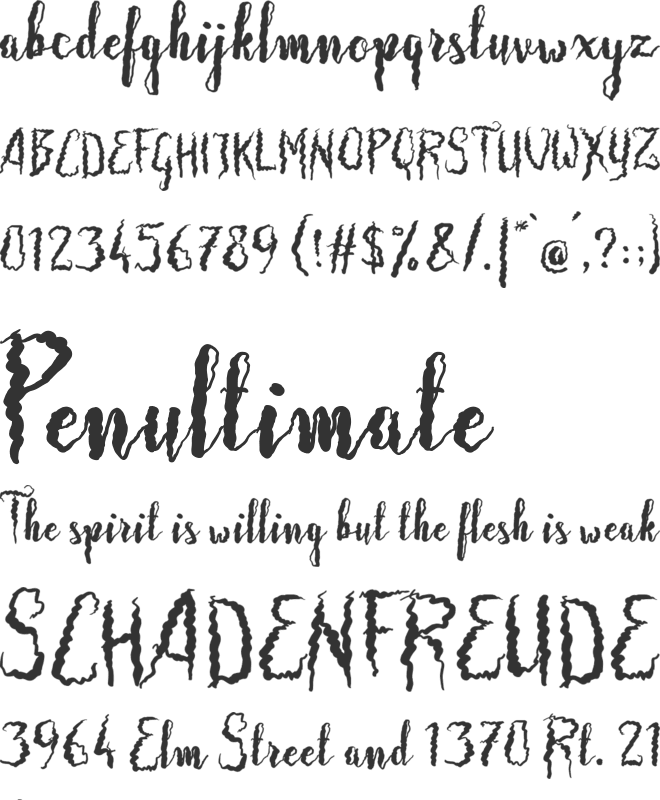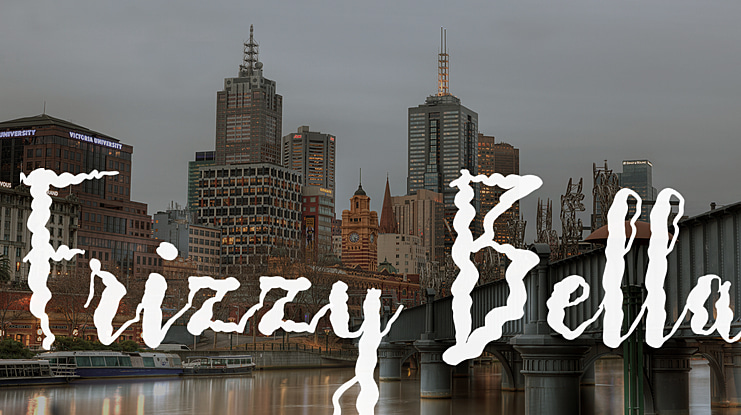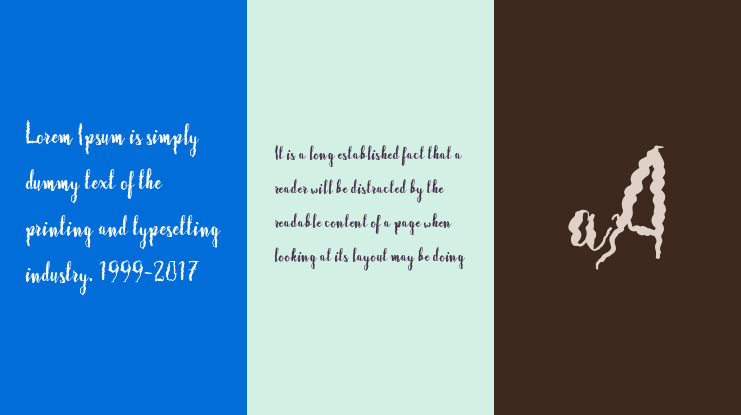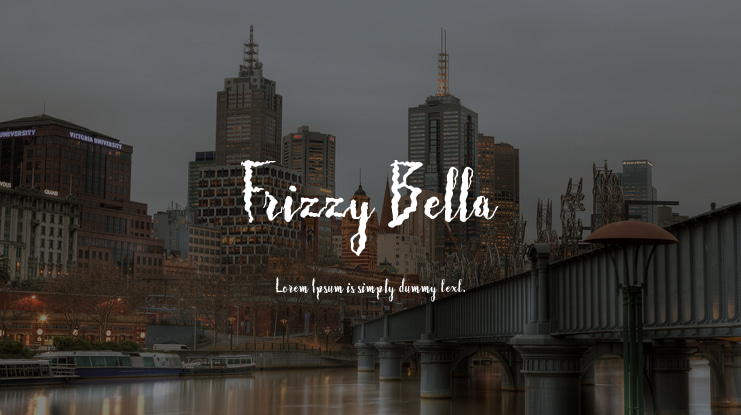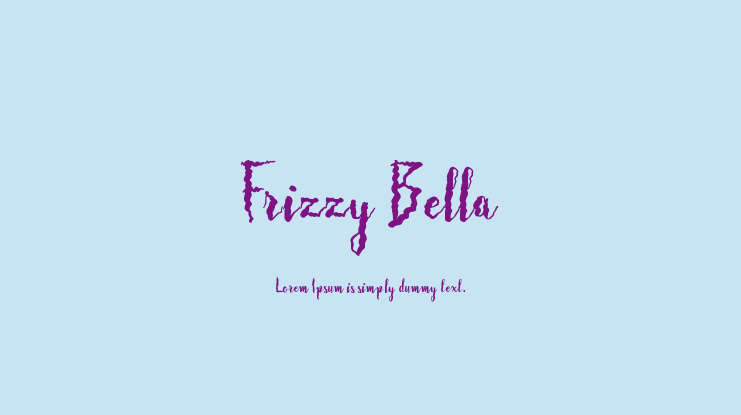
Frizzy Bella Font
Darwinoo
Hi, I present my new cute and beautiful frizzy/curly handwritten font. It will nice to make your design cute and playful style.
Contain 275 glyphs and supported to basic Latin character and eastern Europe language.